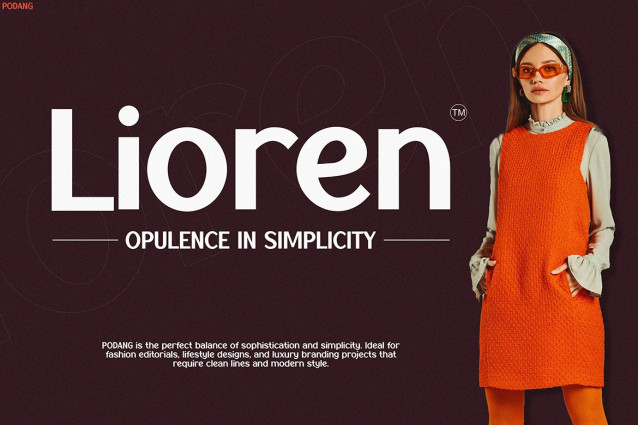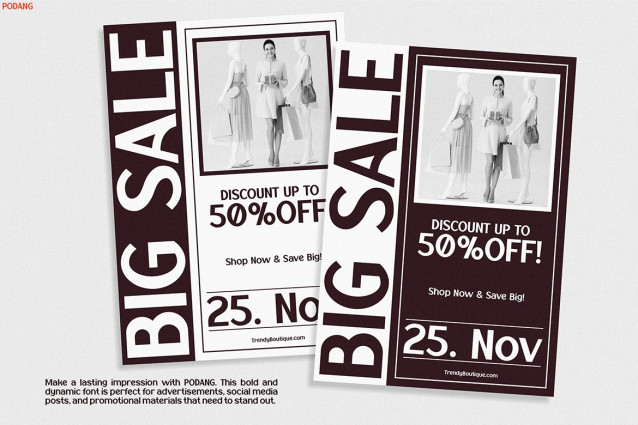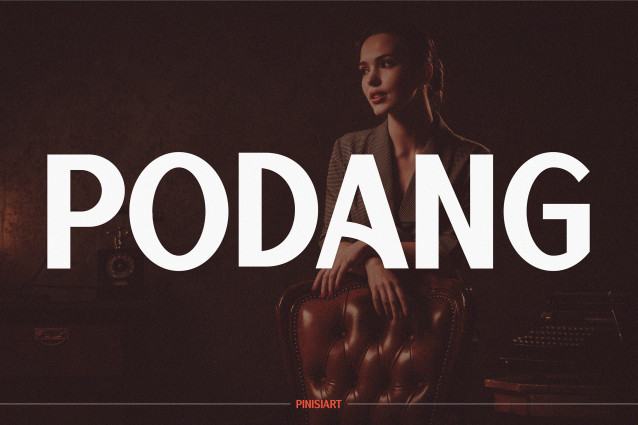
Podang Font
Podang Font – brings boldness and charm to every design it touches. Not only does it combine classic aesthetics with a modern style, it also adds a confident touch that instantly draws the eye. Each letter has clean curves, balanced proportions, and a subtle uniqueness that breathes life into your layouts. Thanks to its eye-catching structure, PODANG is ideal for creating bold statements that grab attention. Whether you’re working on a digital campaign or a print layout, this font always makes an impact.
What makes PODANG really stand out is its ability to combine nostalgia with contemporary design needs. Although it’s inspired by vintage imagery, its crisp execution ensures that it looks fresh and relevant in any context. Furthermore, the consistent weight and smooth flow of the font make your work look professional and cohesive. You can confidently use it in headlines, subheadings, packaging, and branding materials. Thanks to its readability and style, it suits both minimalist and expressive designs.